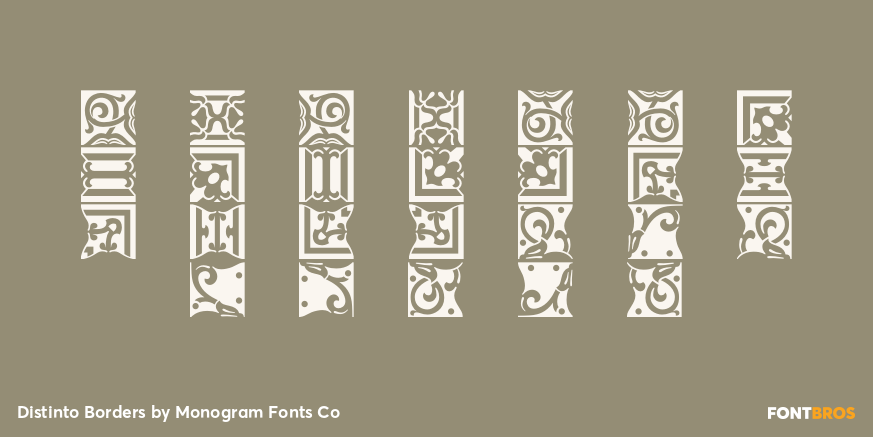
Distinto Borders
Font Family by Monogram Fonts Co
The inspiration source for Distinto Borders are the Black & White and Running Borders from the 1906 Abridged "Keystone Type Foundry Specimen Book". Nine Black & White Borders and Thirteen Running Borders are compiled within this font, all of which can be formatted in various manners to allow maximum versatility. While we've adjusted the metrics in this font, your program of choice may override and use their own settings. Make certain that the point size and the leading size are the same so that the borders connect properly. For instance, the font set at 12 points, should also be set to have 12 points of leading. It's that easy!